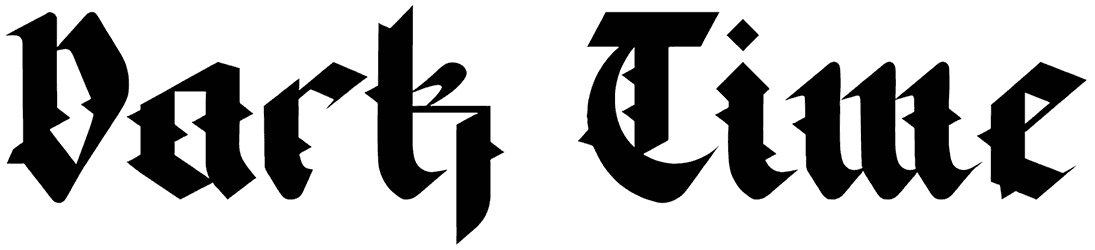
Dark Time Font
Dark Time font is a charming and evocative design element inspired by the dark and moody literature of the Gothic genre. This blackletter font is popular for designers looking to convey a sense of mystery, drama, and crime.
The sharp angles, raised appendages, and thick lines in this gothic font can add much visual appeal to any project. So whether designing an album cover, creating a logo, or a website, Dark Time offers many style possibilities.